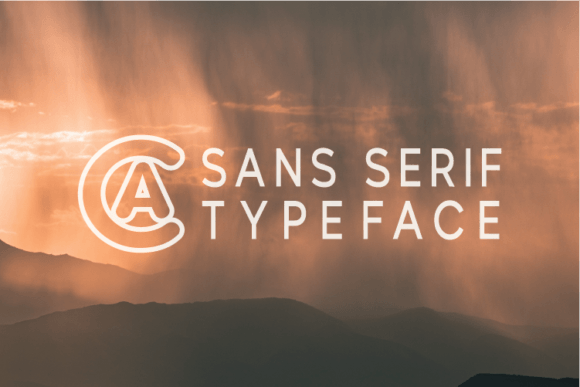
Introduction to Matrixoe Font
As a designer, have you ever stumbled upon that perfect font that elevates your entire creative project? For me, it was the moment I discovered the Matrixoe Font – a modern, classy sans serif typeface that instantly transformed my design concept. Its clean lines, precision, and sophistication caught my attention, and I knew I had to dive deeper.
The Matrixoe Font is more than just a stylish addition to your design arsenal; it’s a valuable resource for any creative project. Whether you’re working on a logo, wedding invitation, or magazine article, this high-quality font is sure to make a lasting impression. With its extensive character set, including numbers 0-9 and a range of punctuation and symbols, the Matrixoe Font offers endless possibilities for designers looking to push the boundaries of their work.
Key Features of Matrixoe Font
- Unique, high-quality design perfect for creative projects with a futuristic and sci-fi theme.
- Designed with a focus on readability, ensuring that the font remains clear and legible even at smaller sizes.
Honest Review: Matrixoe Font
As a designer, I’m always on the lookout for high-quality design resources that can elevate my creative projects. Recently, I had the chance to try out the Matrixoe Font, and I’m excited to share my honest review with you.
- ✨ Unique and creative design style that sets it apart from other fonts
- ✨ High quality, crisp lines and smooth curves make it perfect for digital designs
- ⚠️ Limited character set, may not be suitable for complex or extensive text
- ⚠️ Some users may find the font too ornate or distracting for certain designs
Tips for Getting the Most Out of Matrixoe Font
Use Matrixoe Font in a creative project to add a unique touch. Experiment with different font sizes and styles to create visual interest. You can also pair the font with other design resources, such as graphics and images, to create a cohesive design.
Matrixoe Font is ideal for use in graphic design, web design, and digital art. You can use it to create eye-catching headings, titles, and other design elements. The font’s high quality and transparent background make it a great resource for designers looking to add a unique touch to their projects.